Telawater Quran (Kolkata font) Bengali Font Quran (Arabic)
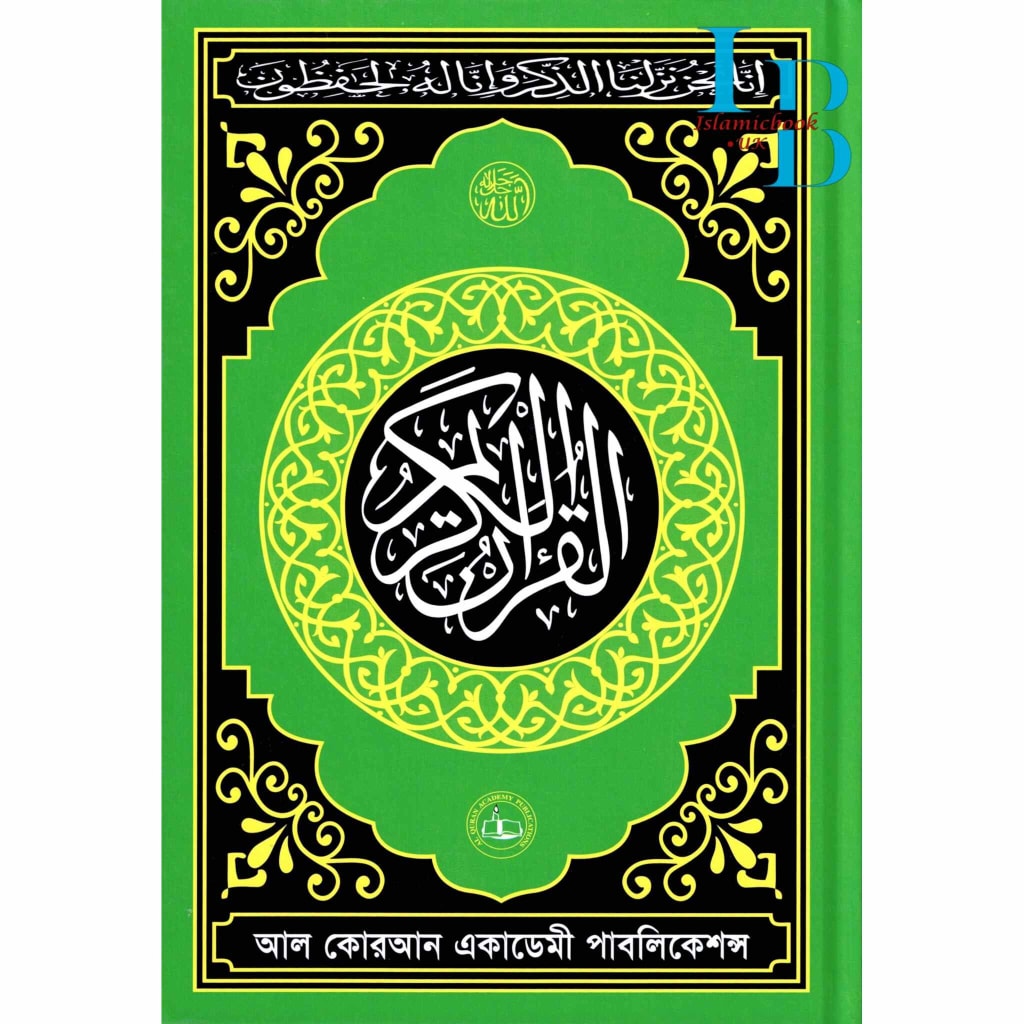
Telawater Quran is God's word for all of mankind, and its preservation from language to culture remains a miracle of Islam. The Telawater Quran (Kolkata Font) is the special edition that extremely combines legibility, cultural heritage, and piety. The use of Bengali-style Arabic font in it further makes it even clearer and therefore best suited for Bengali-speaking Muslims.
This Quran not just preserves the holy words but also serves as a centuries-old calligraphy tradition of Kolkata. For scholars, intellectuals, and general readers alike, it offers a holy and learning bridge between Arabic and Bengali linguistic traditions.
The Importance of Bengali Font in Quranic Tradition
The Bengali script used in the Quran here unites Muslims of the Indian subcontinent with their cultural and linguistic background. The script retains the ease of reading and the originality of the Arabic script.
Through its regional script familiarity, this Quran obliterates barriers to learners of recitation in the proper way. Kolkata Bengali script has stood the test of time, allowing education of the Quran, through which Muslims are able to strengthen the connection with the words of Allah.
Features of the Telawater Quran
This Quran has correct Arabic words with calligraphy inspired by Kolkata. Its clear font and nicely balanced page layout enable easy and engaging recitation.
The care of each page is evident—clear markings, durable paper, and solid text enable easy reading in any illumination. For either study or tilawah, it has form as well as function.
Accessibility for Bengali-Speaking Muslims
For Bengali-speaking Muslims, it can be challenging to learn recitation in classical Arabic script. The Telawater Quran bridges the gap with its localized script, raising comfort and accuracy during learning.
This makes it an excellent study companion for beginners and advanced readers alike. Parents, teachers, and institutions use this version to teach accurate pronunciation and tajweed with confidence.
Spiritual Connection Through Script
Fonts and calligraphy influence the reader's bond with the Quran. The soft curve and movement of the Kolkata Bengali script encourage relaxation and regular recitation.
As readers find it easy to pronounce, their interest automatically shifts to grasping meaning. This harmony of clarity and spirituality strengthens one's emotional bond with Allah's words.
Educational Use and Tajweed Practice
This publication is being used by madrasahs and schools for the Quran due to its uncluttered design and easy print. It is useful for teachers as it ensures consistency for group recitation.
It is useful to learners with distinct letter recognition, correct pronunciation, and lower visual effort. Its simplicity makes memorization (Hifz) easier and instils a disciplined approach to learning Tajweed.
A Cultural Legacy of Kolkata Script
Kolkata font boasts deep historical roots in the Islamic South Asian heritage. Since ancient times, scholars and calligraphers of Bengal have been working to keep Quranic text alive.
Telawater Quran honors this heritage by merging the elegance of Bengali craftsmanship with the precision of classical Arabic. It is a cultural and spiritual treasure for the modern world.
Comparison with Other Fonts
Compared to IndoPak or Uthmani scripts, the Kolkata Bengali font offers a smoother reading experience to Bengalis. The words are slightly broader, not straining the eyes when it comes to long readings.
Its unique style does not compromise on accuracy—each diacritic and verse indication is in its perfect place. Other-font readers like the fact that this version is smoothly simple and authentic.
Who Should Read This Edition
The Telawater Quran is ideal for Bengali-speaking Muslims, learners of Arabic script, and anyone who values traditional calligraphy. Its accessible style suits all ages and educational levels.
Whether you’re memorizing surahs, reciting daily, or gifting a Quran to a loved one, this edition fulfills all needs beautifully.
Translations, Tafsir, and Commentary
Some Telawater Quran versions include Bengali translations along with brief tafsir notes for readers to grasp meanings during recitation. Contextual comprehension strengthens belief and reflection.
The descriptions are brief but remain true to the form, being easy to learn without overwhelming new learners. They remain recitation significant and spiritually enriching.
By using this edition, the reader not only pronounces the Quranic words accurately but also preserves a cultural heritage rooted in scholarship and faith. Telawater Quran is not merely a book, but a lifetime companion for worship, reflection, and affection for the Quran.